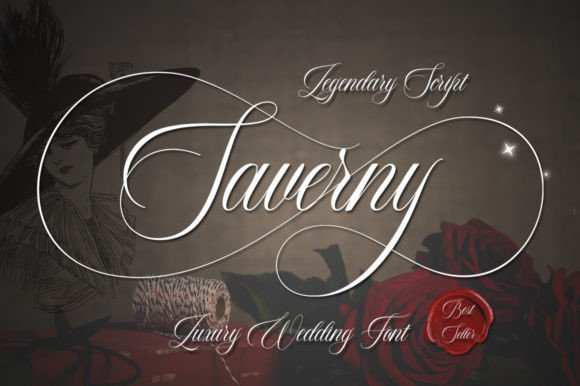
Introducing Saverny Font, the epitome of vintage calligraphy script fonts! Created by the talented HKL Studio, this font family is designed to captivate and inspire. Whether you're a college student or a professional, Saverny Script is the perfect choice for adding a touch of elegance and sophistication to your projects.
With its smooth and clean appearance, Saverny Script exudes a feminine charm that is both sensual and glamorous. The typeface is carefully crafted to ensure easy readability, making it a breeze for your audience to enjoy your message without any effort.
Looking to make a lasting impression? Look no further. Saverny Script is the ultimate choice for creating stunning logos that will leave a lasting impact on your audience. Its timeless appeal adds a sense of class and sophistication to any branding project, making your business stand out from the crowd.
Planning a wedding or a romantic event? Saverny Script is the perfect companion for your invitations. Its exquisite style adds a touch of romance and elegance, setting the tone for a truly memorable occasion. Your guests will be instantly captivated by the beauty and charm of this font.
But that's not all – Saverny Script is also a fantastic choice for alcohol labels, adding a touch of luxury to your product. Its unique and eye-catching design will make your bottles stand out on the shelves, drawing the attention of potential customers and leaving a lasting impression.
In a world where simplicity is key, Saverny Script delivers. Its simplicity and versatility make it suitable for a wide range of applications, from greeting cards to social media posts. Embrace the power of this font and let your creativity run wild.